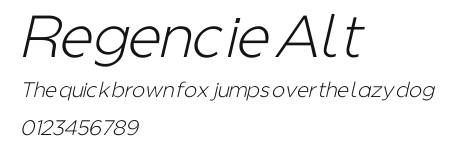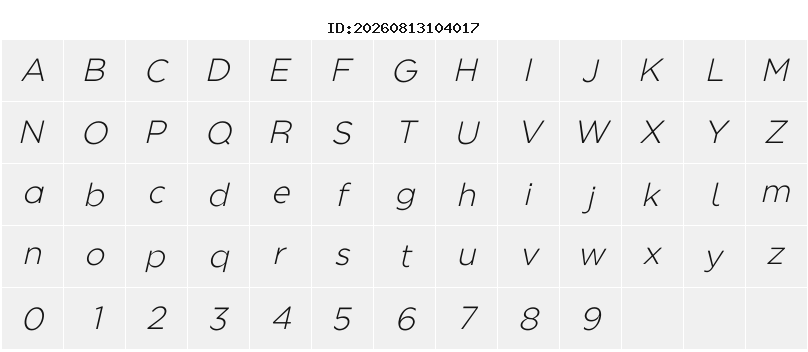
• Font Name: Regencie Alt
• Font Style: LightAltObl
• Font ID: ATO : Regencie Light Alt Oblique
• Full Font Name: Regencie Light Alt Oblique
• PostScript Name: RegencieLightAltObl
About Regencie Alt.ttf
Regencie Alt.ttf is a modern, elegant sans-serif font designed for ultimate readability and visual harmony. Perfect for branding, headlines, web design, and print materials.